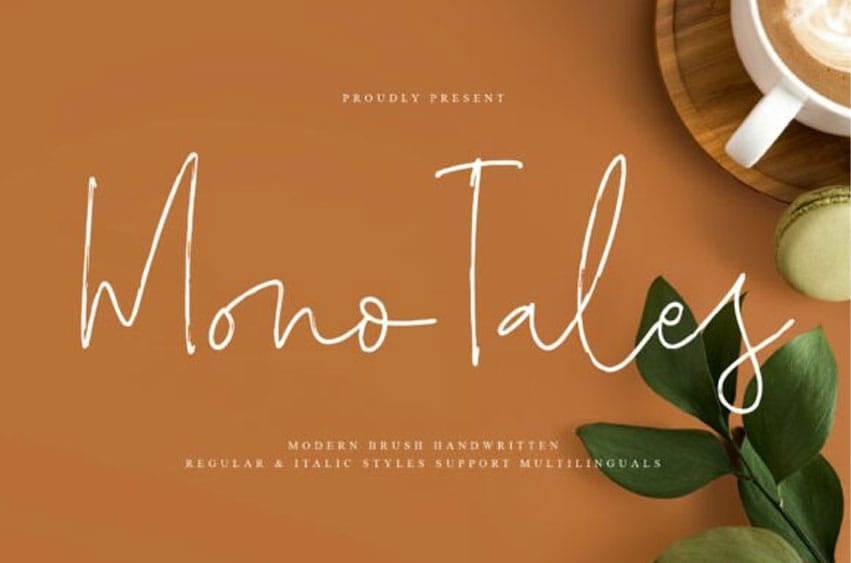
Monotales Regular Font is a modern brush handwritten font, radiating bold elegance with a handcrafted flair. Designed to elevate your visuals with expressive strokes and a premium feel, this font is ideal for a wide range of sophisticated design projects. Whether you’re working on logos, brand identities, home décor, product packaging, or stylish merchandise like mugs and t-shirts, Mono Tales delivers dynamic personality with every letter. It also lends charm to quotes, posters, book covers, business cards, invitations, and event collateral—making it a go-to choice for designers seeking that perfect fusion of artistry and professionalism.
This typeface comes fully equipped with ligatures, alternates, and swashes to offer design flexibility and creative flair. It’s compatible with both PC & Mac, and installs effortlessly. You can use Mono Tales seamlessly in Adobe Illustrator, Photoshop, InDesign, and even Microsoft Word.